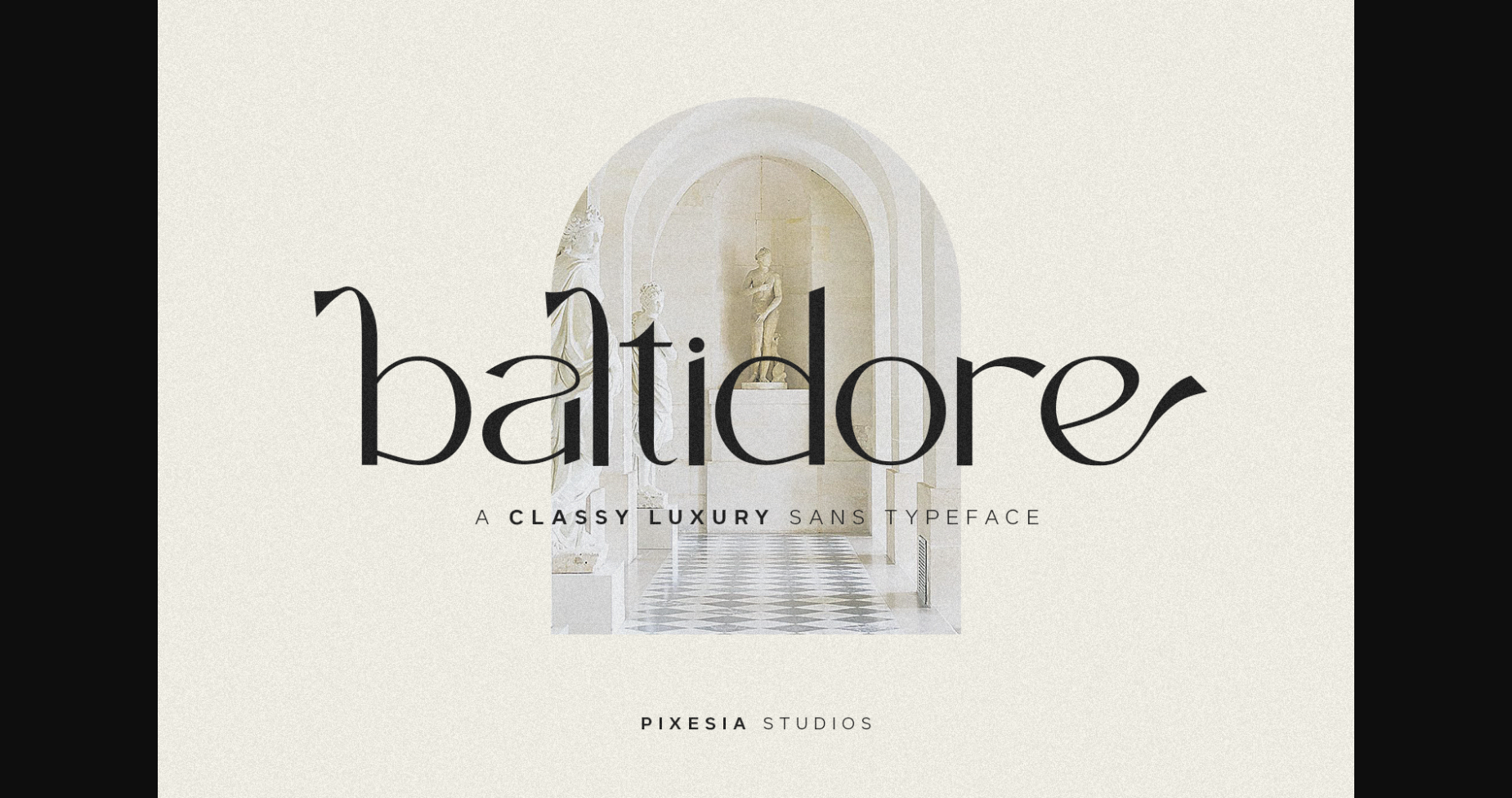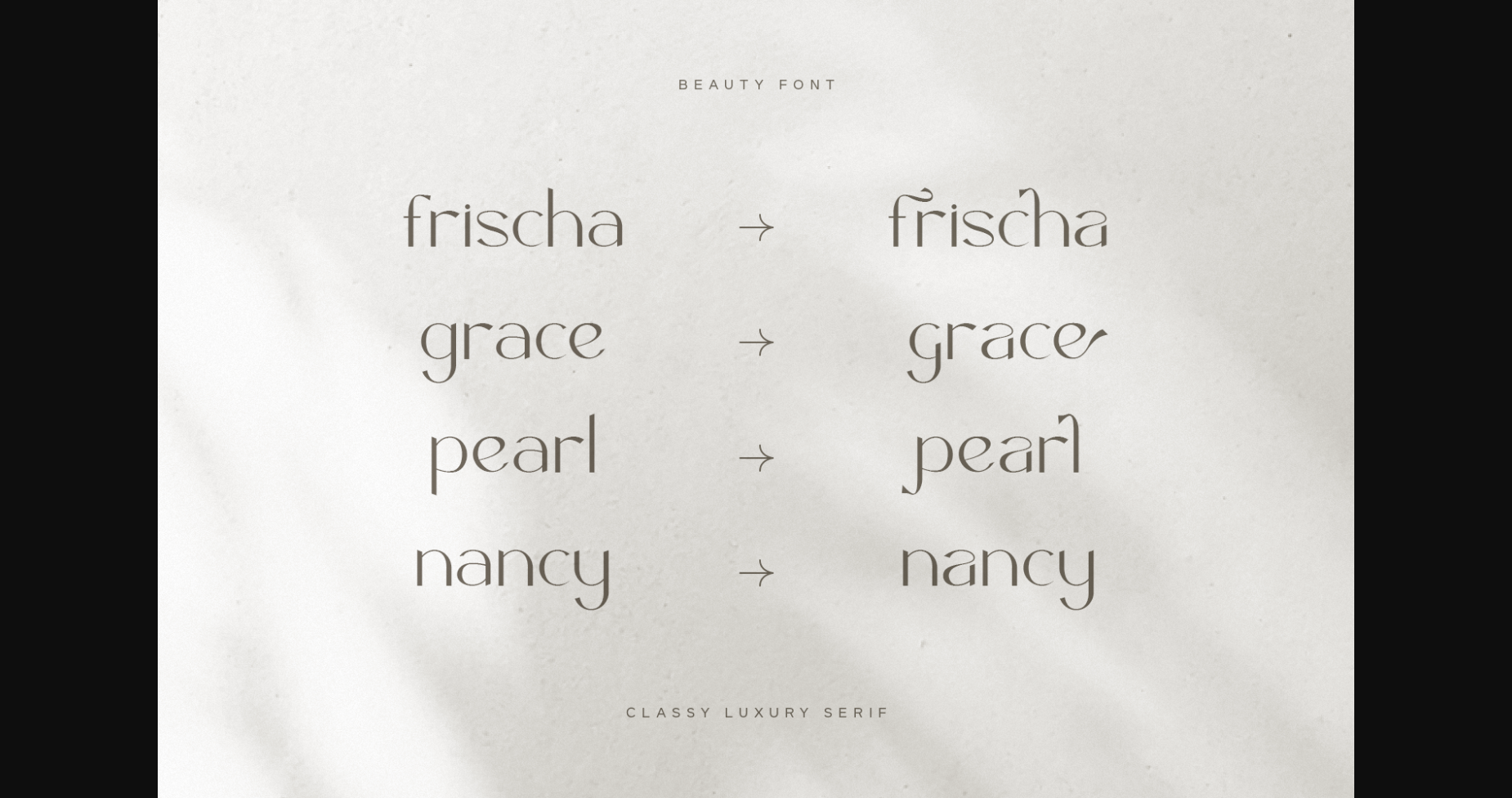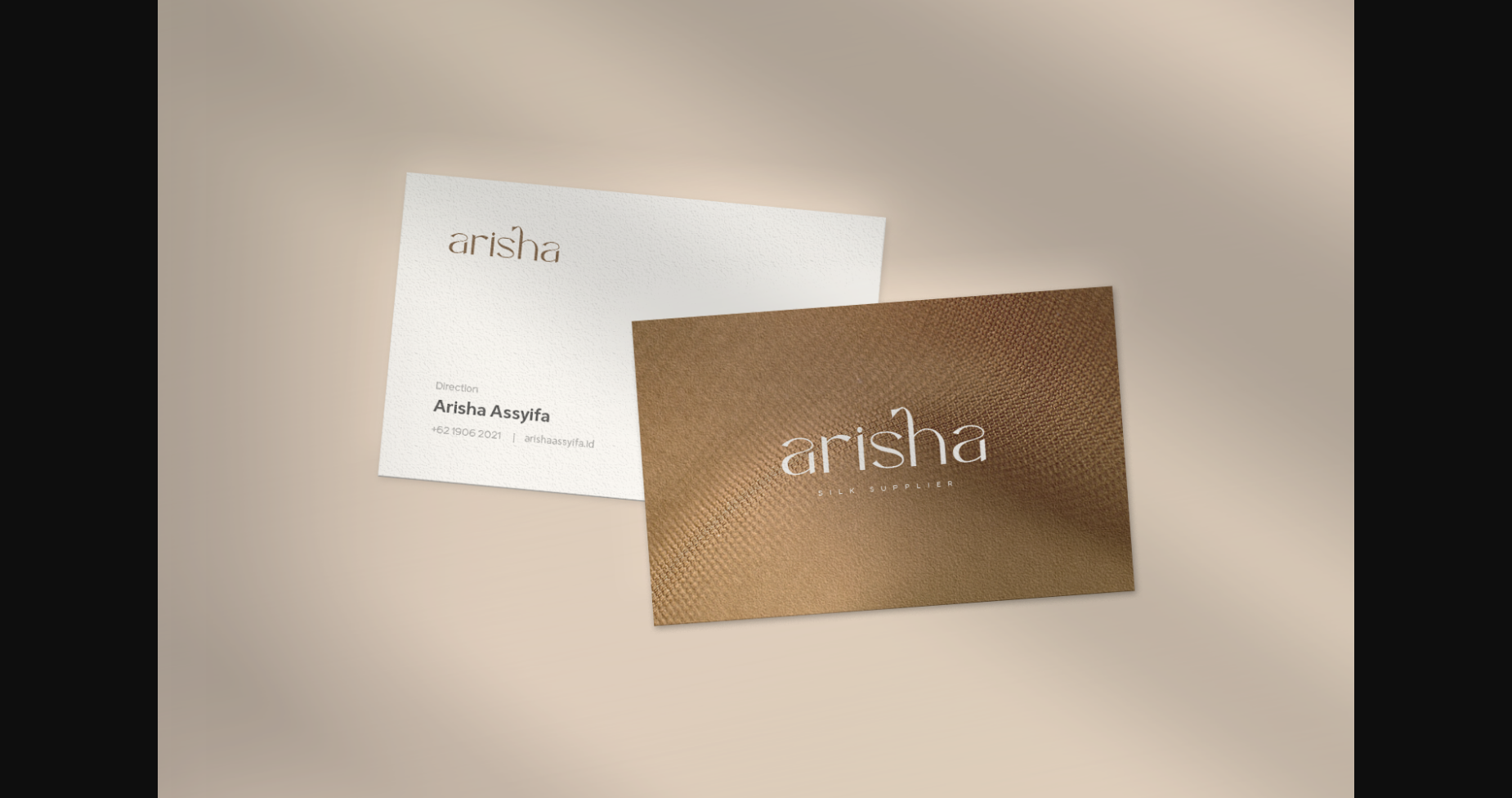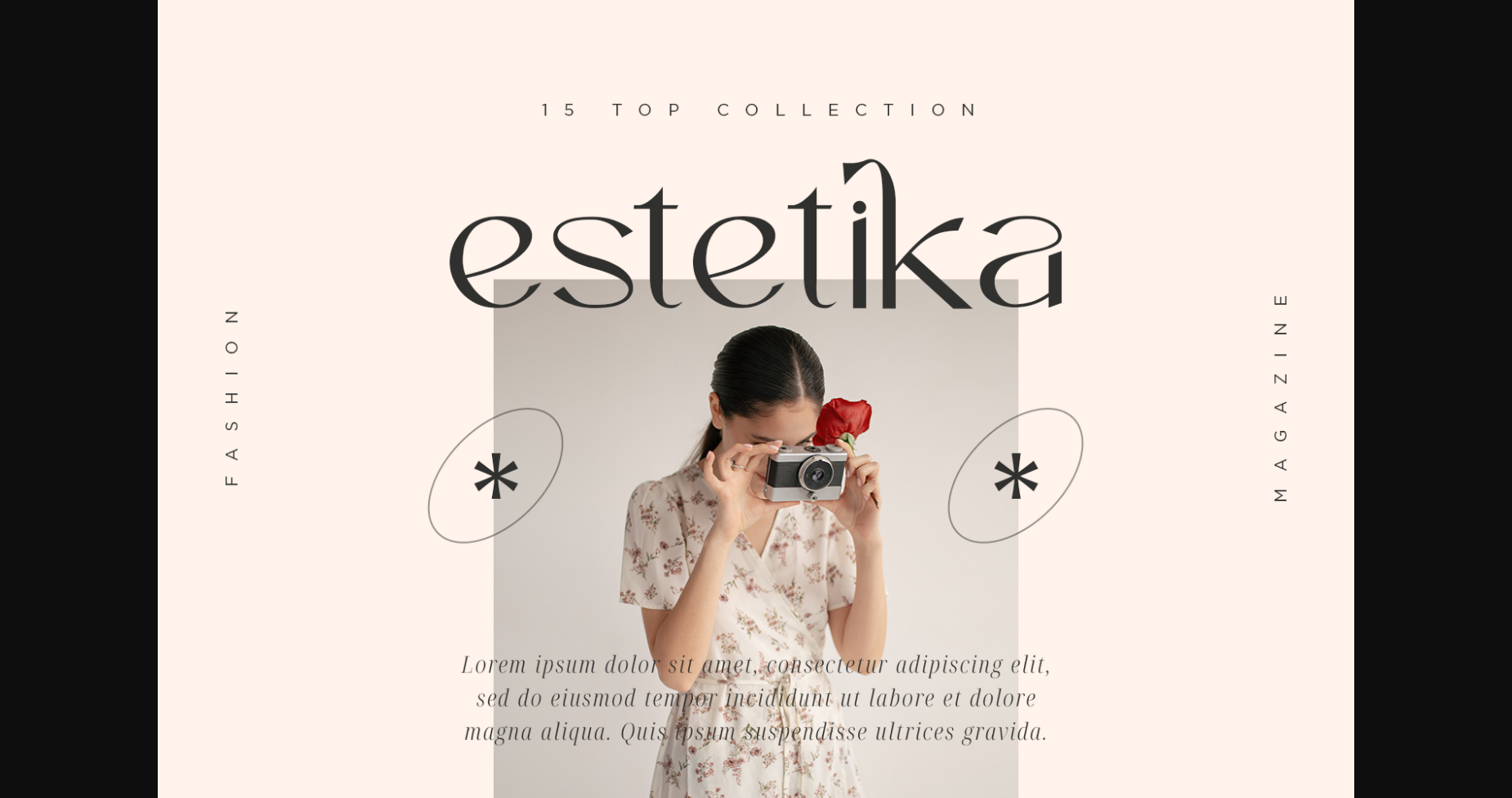
About Baltidore Font
Baltidore is an elegant and luxurious sans serif font. It is PUA encoded which means you can access all of the glyphs and swashes with ease!